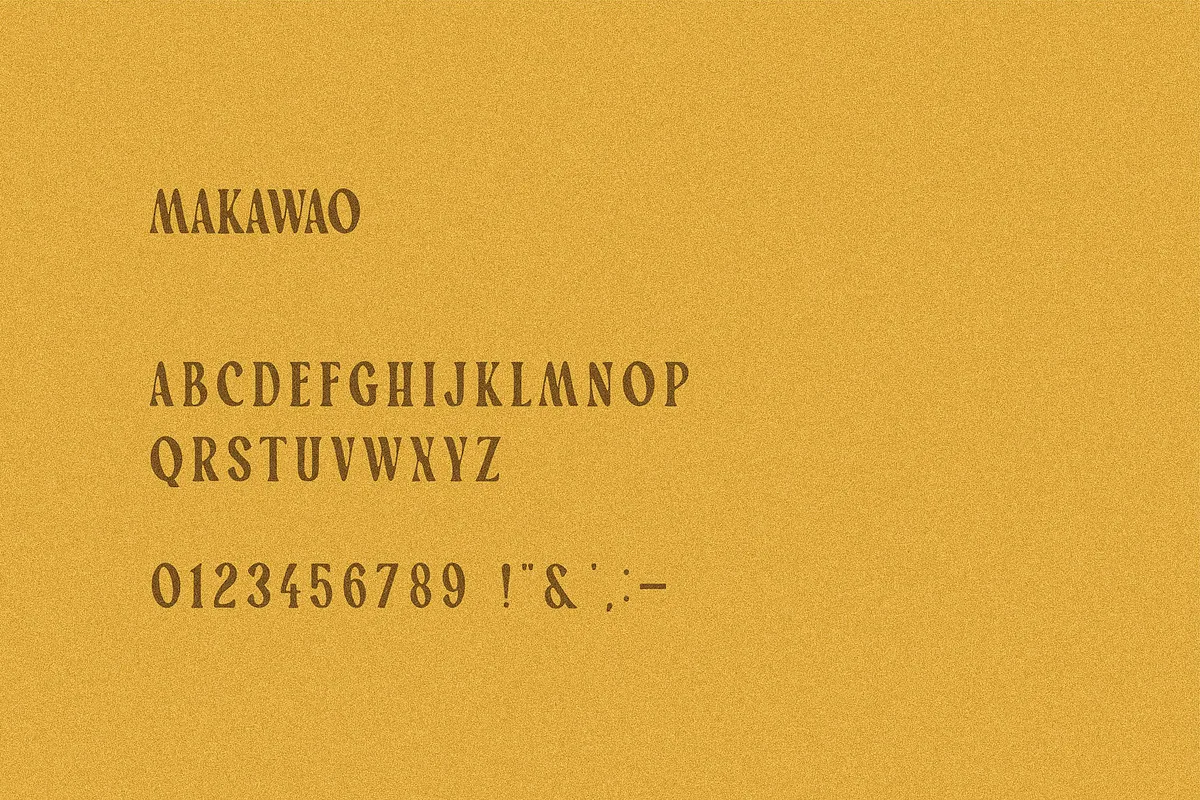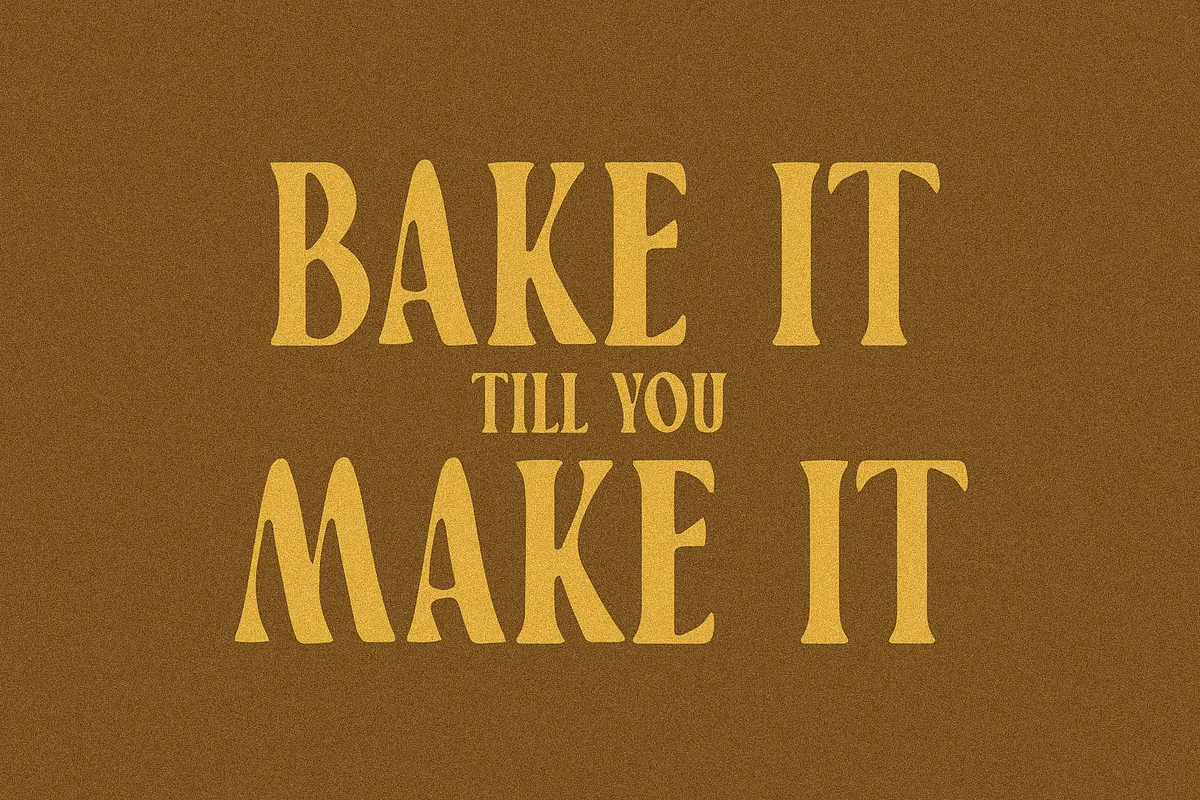
Makawao is a soft modern serif font. It is a fresh addition to the world of type. It’s laidback, welcoming and perfect whatever creative venture you use it for. Contains all uppercase, numbers and basic punctuation. It is perfect for branding projects, logo, wedding designs, social media posts, advertisements, product packaging, product designs, label, photography, watermark, invitation and more.
Makawao Soft Modern Serif Font